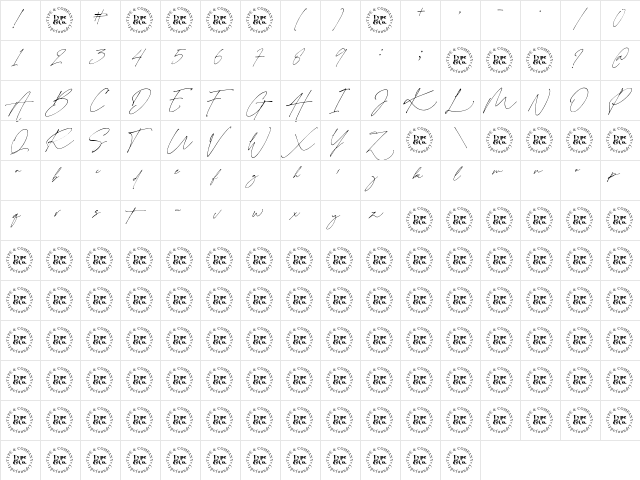
Charlotte Signature Demo Regular
| Foundry | type & company |
| Designer | type & company Typefoundry |
Design Context for Charlotte Signature Demo Typeface
Charlotte Signature Demo is a composed and adaptable typeface that performs quietly and consistently across a wide range of design contexts.